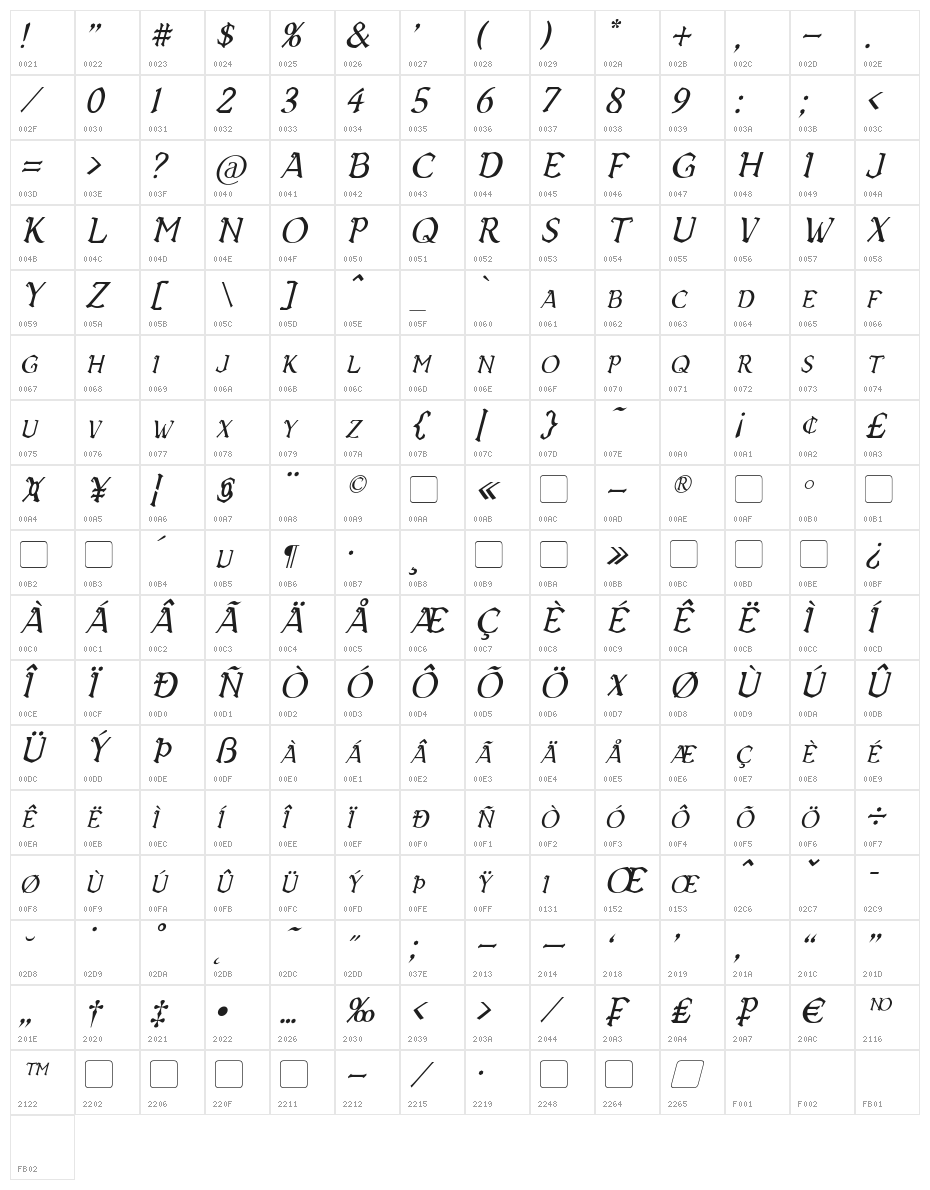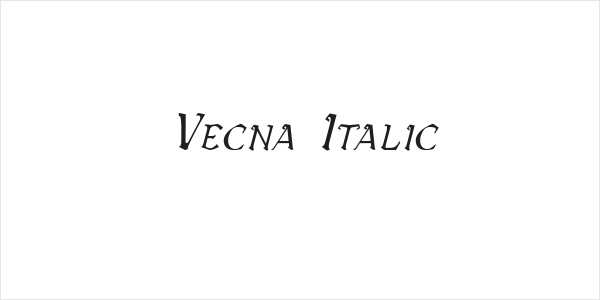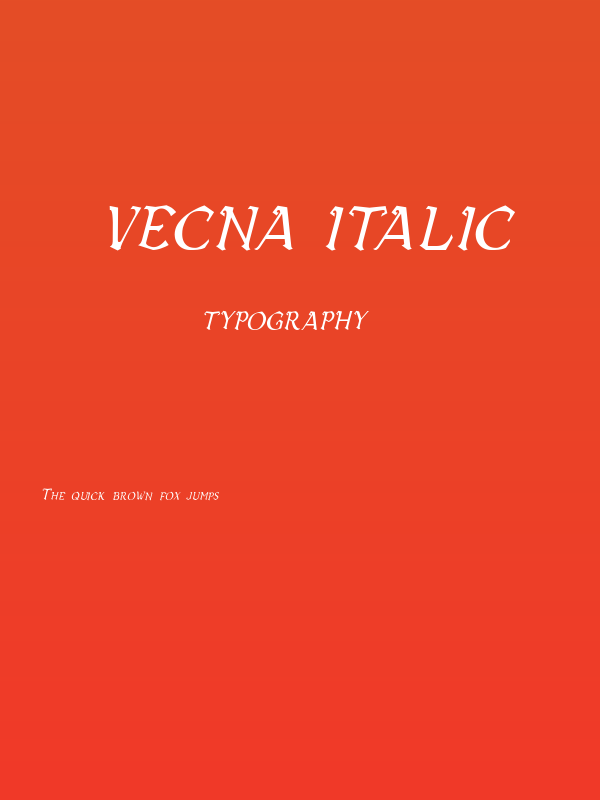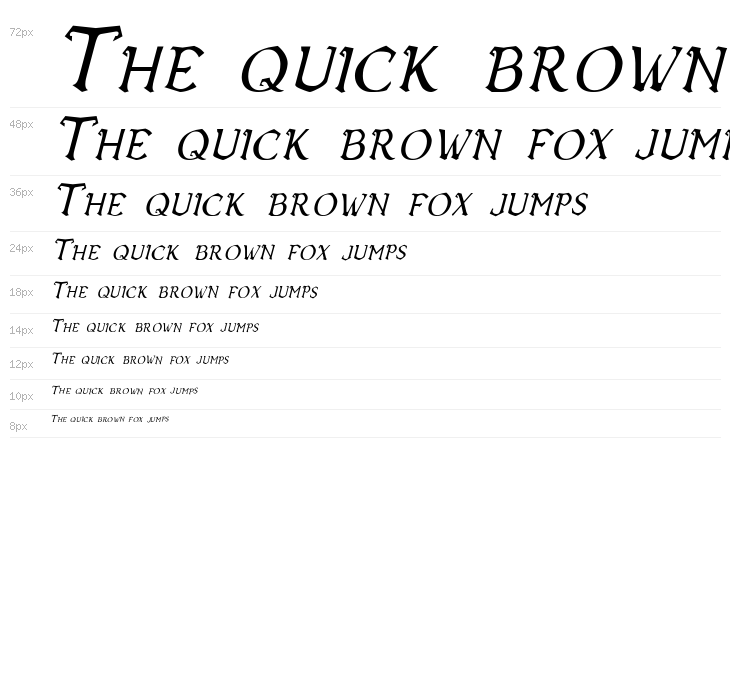
Vecna Italic Font
Vecna Italic Description
This font features a dynamic and elegant italic style, characterized by its flowing and slightly angular strokes. The uppercase letters exhibit a sense of movement, with sharp serifs and a slight slant that adds a touch of sophistication. The lowercase letters maintain a consistent style, complementing the uppercase with their own graceful curves. Numerals are clear and distinct, ensuring readability while maintaining the overall aesthetic. Special characters are thoughtfully designed, integrating seamlessly with the rest of the font. This font's unique style makes it suitable for projects that require a touch of elegance and flair.
| Proposed Projects | Ideal for wedding invitations, luxury branding, and editorial design. |